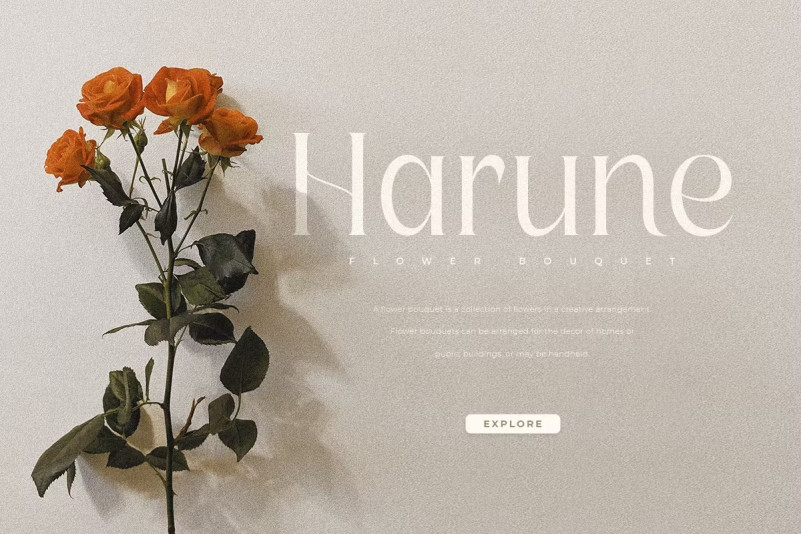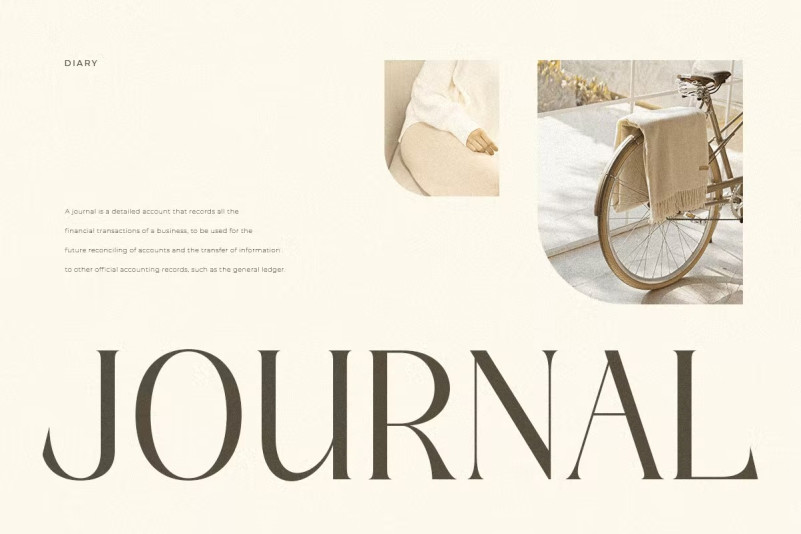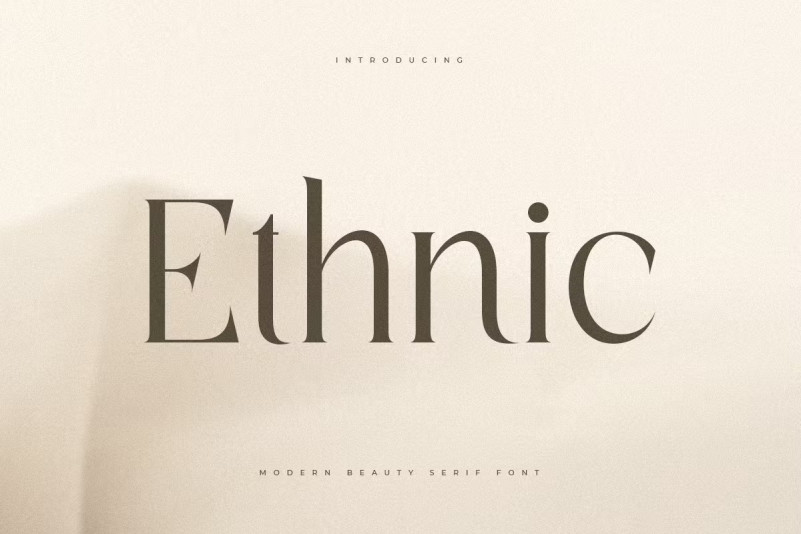
Ethnic Font
Ethnic Font – A luxury modern serif font we created especially for stylish branding needs, with a unique shape, will be ready to add value to your brand. It’s so nice to work with a designer or product owner who needs solutions to make their design more sleek and modern. And especially for the ethnic font, we prepared all the typefaces to help you create unlimited variations for your creative needs.